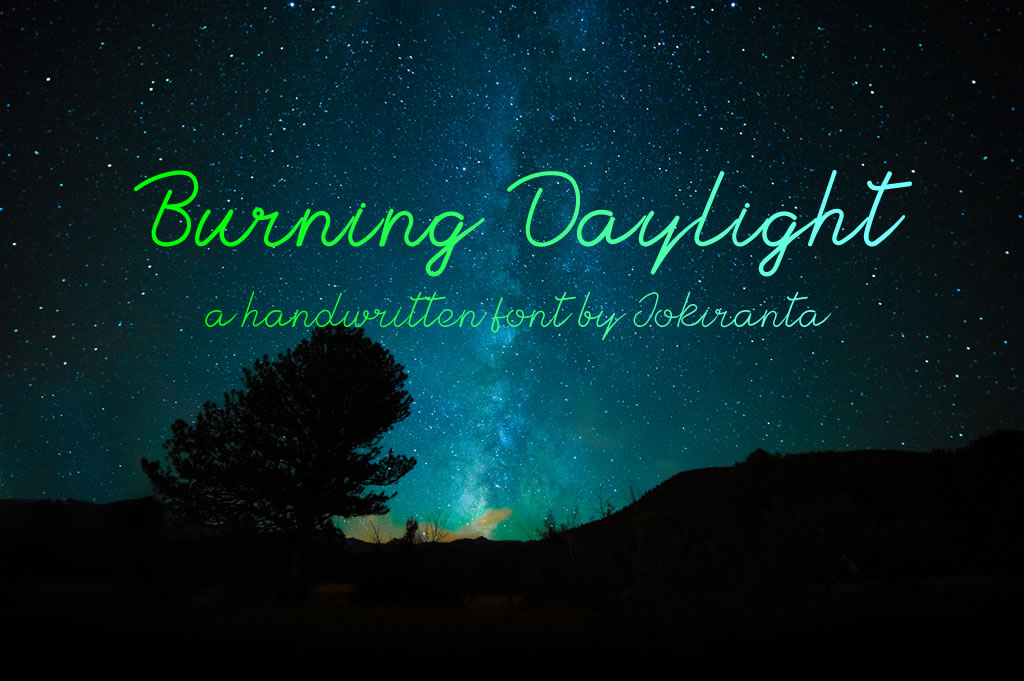
The Magic of Burning Daylight Font: A Designer’s New Best Friend
I still remember the day I stumbled upon the perfect font for a wedding invitation project. I had been searching for hours, trying out different fonts, but nothing seemed to fit the elegant yet playful vibe my client was looking for. That’s when I discovered Burning Daylight, a stunning handwritten font created by Jokiranta. It was love at first sight! ✨
Burning Daylight is a versatile font that can be used for a wide range of projects, from beautiful wedding invites and birthday cards to nursery wall art and more. In this article, I’ll share my honest review of the font, provide a practical guide on how to use it, and explore similar fonts you might love.
• ✨ Beautifully crafted handwritten letters with a unique, elegant feel
• ✅ Highly versatile and suitable for various design projects
• 🔥 Excellent for creating eye-catching titles, headings, and invitations
• 💕 Works well with both digital and print designs
While Burning Daylight is an amazing font, there are a few things to keep in mind: 🤔
• ⚠️ Some letters may require manual kerning for optimal spacing
• ⚠️ Limited availability of stylistic alternates (but still offers a range of OpenType features)
The Story Behind Burning Daylight
Burning Daylight was created by Jokiranta, a talented font designer with a passion for crafting unique and beautiful typefaces. According to Jokiranta, the inspiration for Burning Daylight came from a combination of traditional calligraphy and modern digital design. The result is a font that feels both elegant and approachable.
Font Name Burning Daylight Font
Author Jokiranta
Q: What type of projects is Burning Daylight suitable for?
A: Burning Daylight is a versatile font that can be used for a wide range of projects, including wedding invitations, birthday cards, nursery wall art, and more.
Q: Does Burning Daylight support OpenType features?
A: Yes, Burning Daylight offers a range of OpenType features, including ligatures and stylistic alternates.